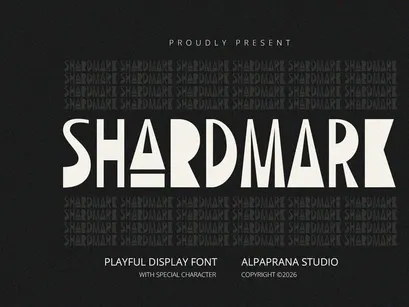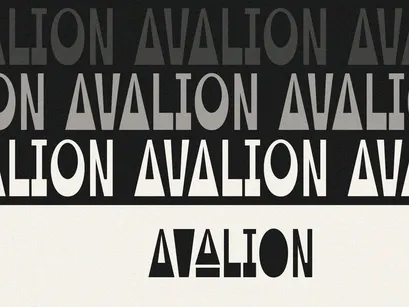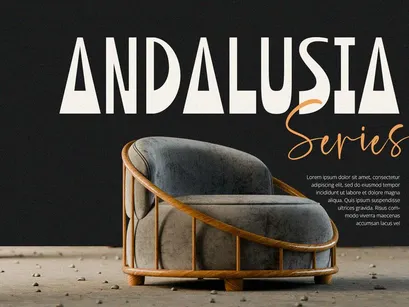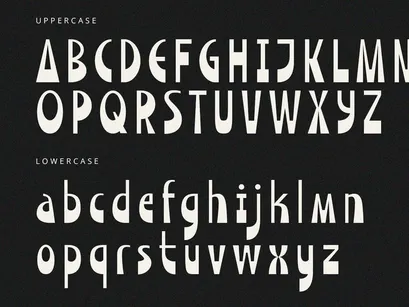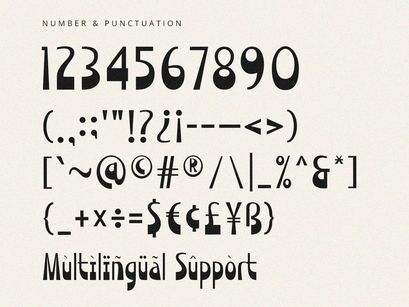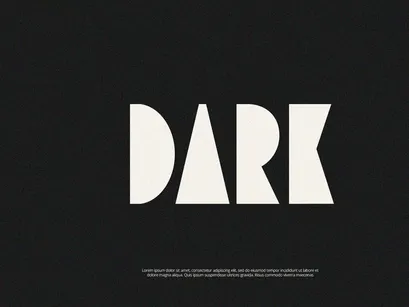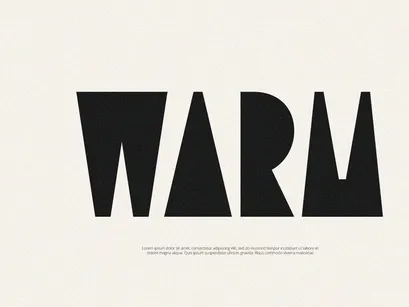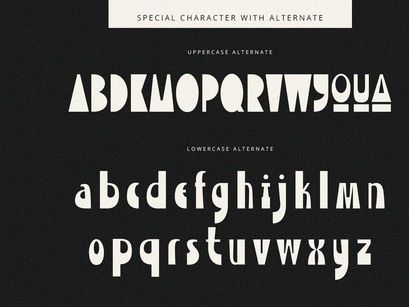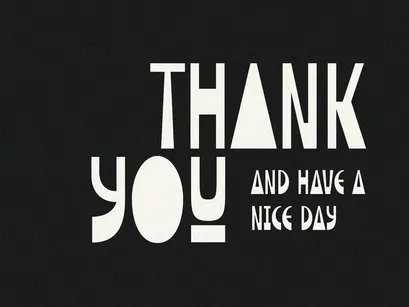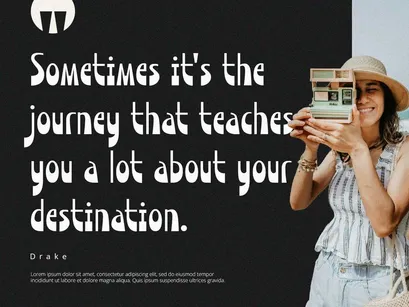
Shardmark - Display Font
Shardmark is display font with modern feels. It will be perfectly used for Branding, Logo Design, Lettering, Logotype, Clothing, Poster, magazine, packaging, posters, shopping bags, t-shirts, book covers, photography, special events and other design project.